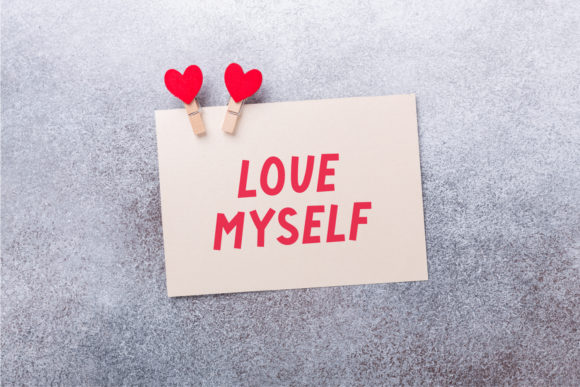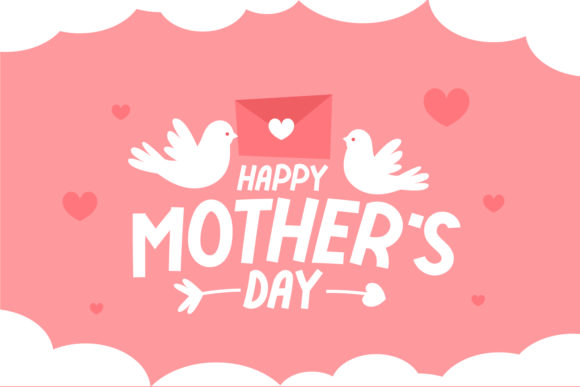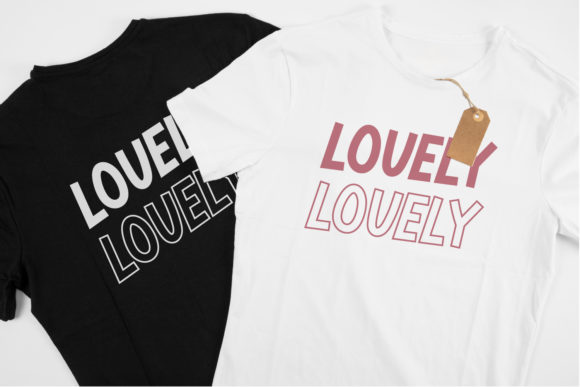
Introduction to Side Love Font
Side Love is a thick Sans Serif Font that is both bold and cute.
This font will love wonderful on posters, social media posts, wall art, flyers, and all the design that you want to make stand out .
Side Love Font offers exceptional quality and versatility, making it a valuable addition to your design toolkit. Whether you’re creating for personal projects or commercial use, Side Love Font delivers professional results.